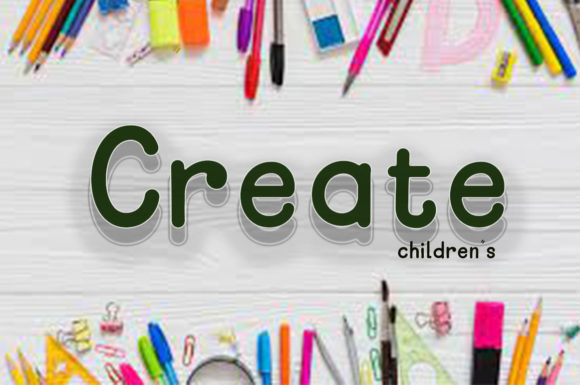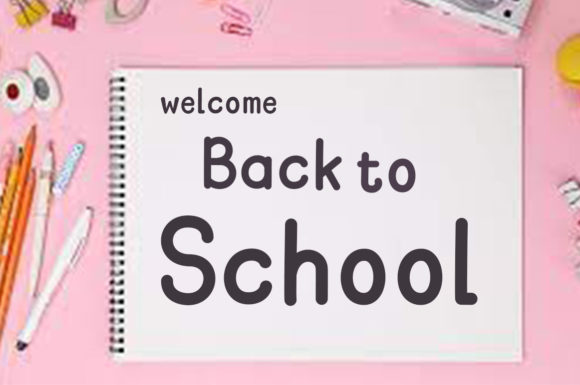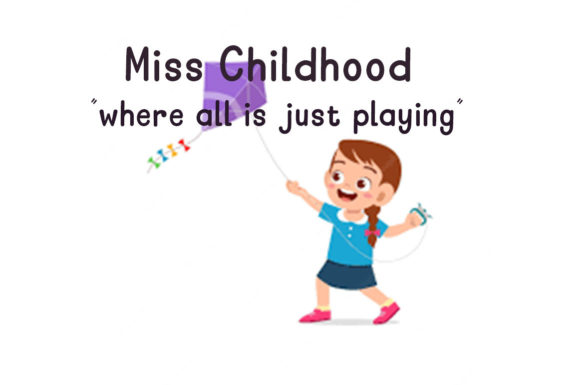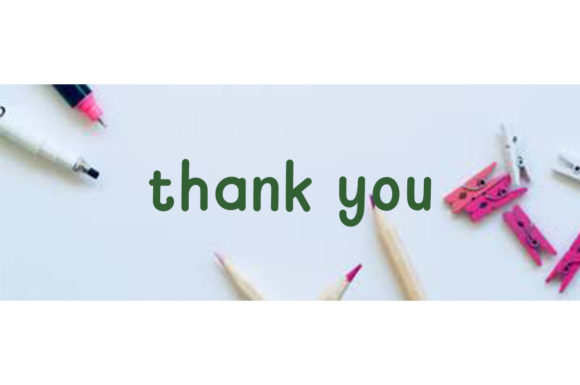
The Sweet Spot for Creative Expression: Kids Routine Font
Have you ever sat down with a blank page, a pencil, and a dash of imagination, only to find yourself lost in a world of creative possibilities? It’s moments like these that remind us of the beauty of unstructured design. But what happens when we need to add a touch of structure and personality to our work? This is where the Kids Routine Font comes in – a charming and effortless handwritten font that brings a smile to the face of designers everywhere.
This delightful font is perfect for adding a touch of whimsy to your next project. With its natural, unique style, the Kids Routine Font is incredibly versatile, making it a valuable addition to any designer’s toolkit. Whether you’re working on a children’s book, a nursery decor project, or simply need to add a personal touch to a client’s logo, this font is sure to bring your ideas to life.
Kids Routine Font Key Features
- Font Family: A custom-designed font specifically created for children’s routines, with a playful and educational feel.
- Unique Characteristic: The font features a unique, hand-drawn design with rounded edges and soft lines, making it perfect for creating a friendly and approachable atmosphere.
Designer Review: Kids Routine Font
Overall, I think Kids Routine Font has a lot going for it. ✨ The font’s playful and whimsical feel makes it perfect for creating a fun and engaging atmosphere for kids. The font’s curves and rounded edges give it a soft, childlike quality that’s hard to resist. ✨ The font’s versatility also shines through in its ability to be used for a variety of purposes, from nursery decor to kids’ educational materials.
However, there are a few limitations to consider. ⚠️ One of the main issues I have with Kids Routine Font is its lack of clarity at smaller font sizes. When used in smaller sizes, the font can become difficult to read, which may be a problem for certain applications. ⚠️ Additionally, the font’s design may not be suitable for all types of content. For example, it may not be the best choice for formal educational materials or serious children’s literature.
Here are some of the key features of Kids Routine Font:
- Playful and whimsical design
- Soft, childlike quality
- Versatile and suitable for a variety of purposes
- Lack of clarity at smaller font sizes
- Not suitable for all types of content
Use the “Kids Routine Font” to create fun and engaging graphics for kids, such as:
- Activity schedules
- Bedtime routines
- Learning charts